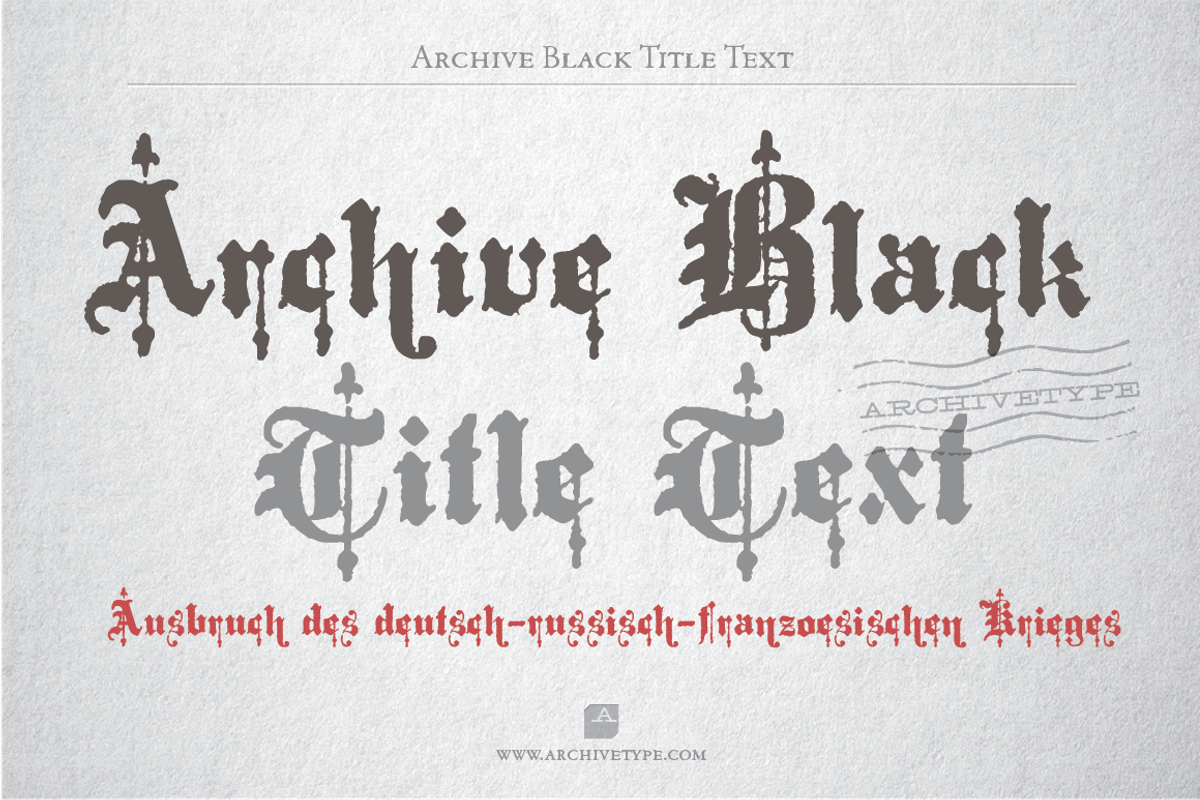
Archive Black Title Text Font Free Download is a bold and modern typeface designed to make a strong impression. With its thick, heavy letterforms and striking design, this font is perfect for creating attention-grabbing headlines, logos, posters, and branding projects that need to stand out.
Its bold design ensures excellent readability, making it ideal for both display and title text. Whether you're designing for a tech brand, event promotion, or an advertising campaign, Archive Black adds strength and impact to your typography.